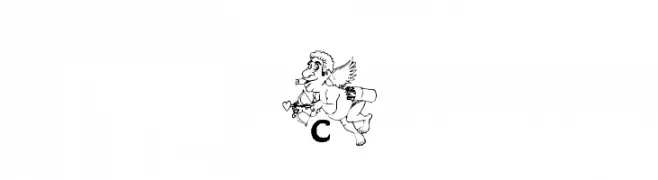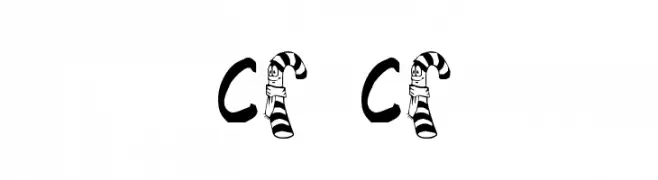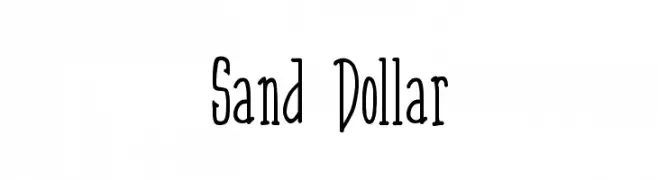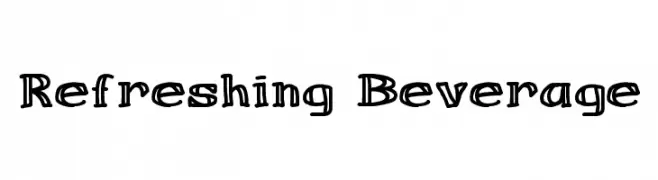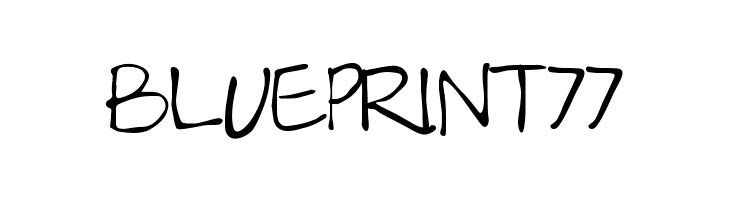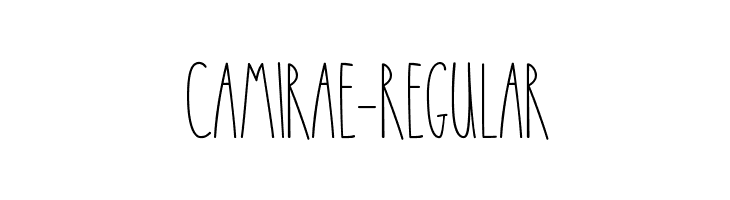
A whimsical font with cherub illustrations accompanying each character.
An ornate, decorative font with crocodile-themed letters and jester-accompanied numbers.
A playful, candy cane-themed decorative font perfect for festive projects.
A festive, candy cane-inspired font with bold, striped characters.
A bold slab serif font with strong lines and prominent serifs.
A playful, handwritten-style font with bold, rounded characters.
A whimsical, playful font with tall, narrow letterforms and a hand-drawn feel.
A playful, hand-drawn font with bold, rounded characters.
A playful, hand-drawn font with quirky, animated strokes.
A bold, playful handwritten font with rounded, irregular letterforms.